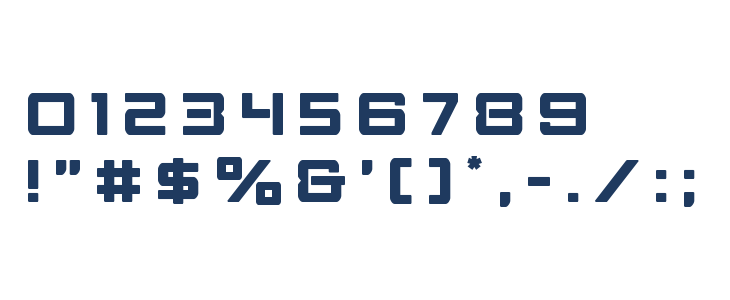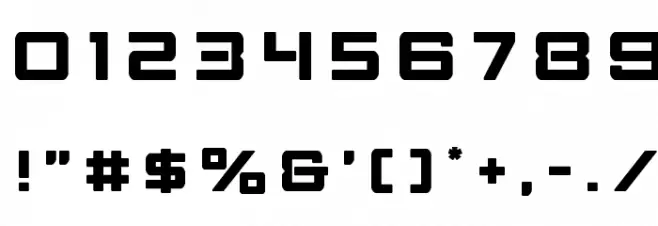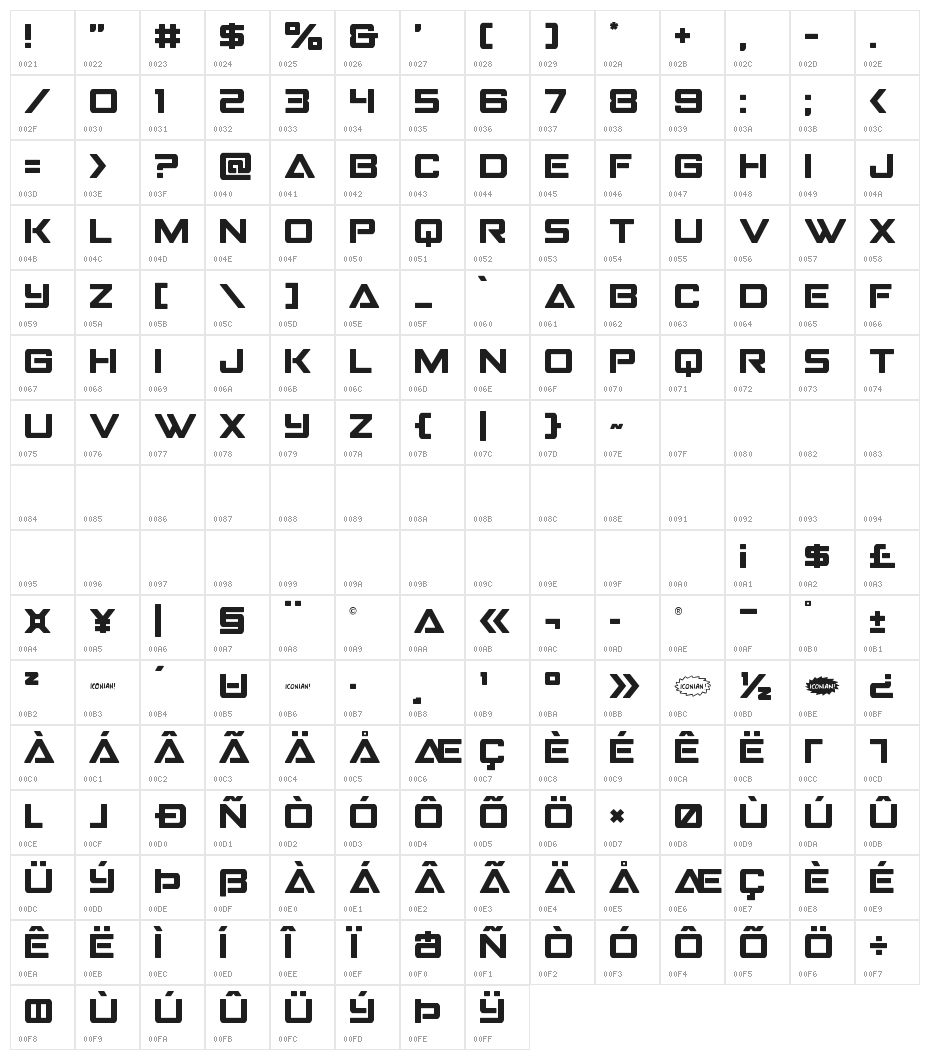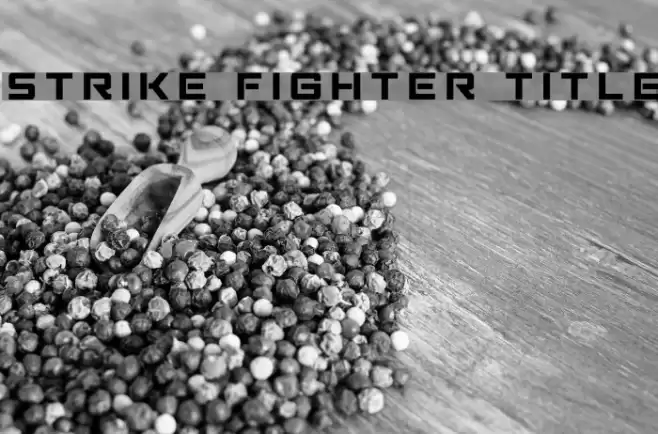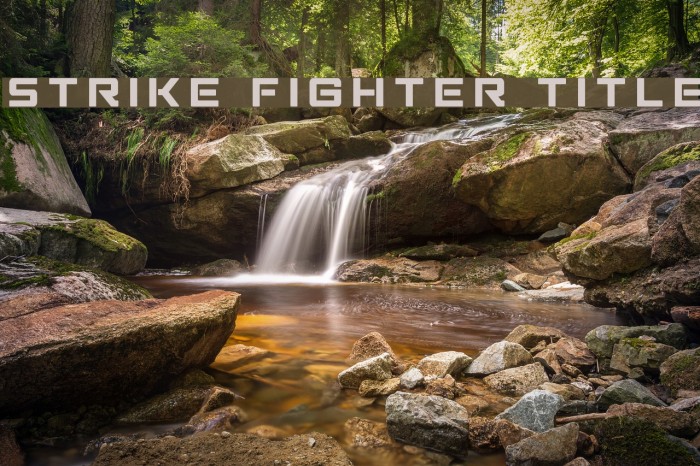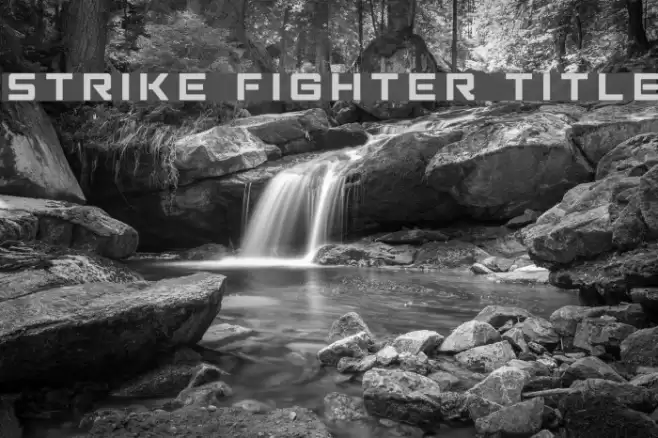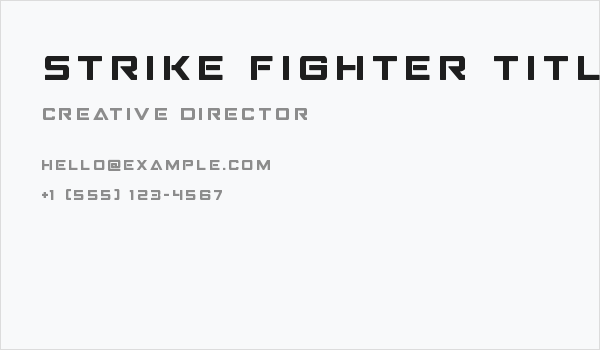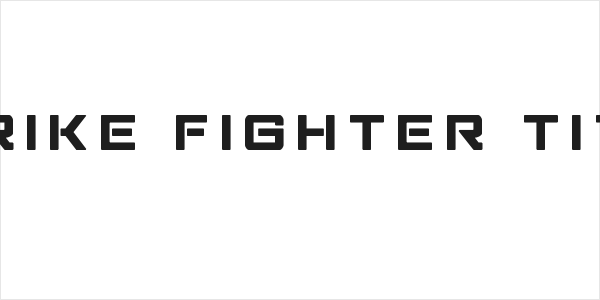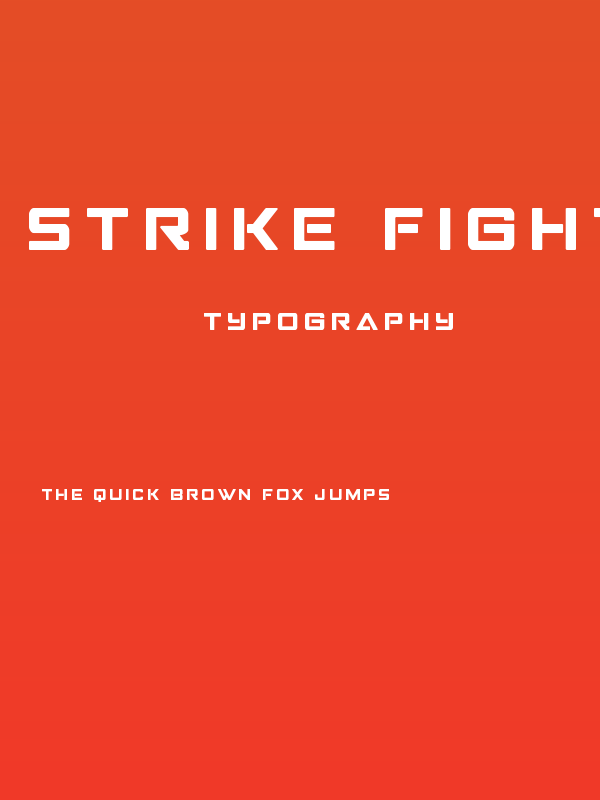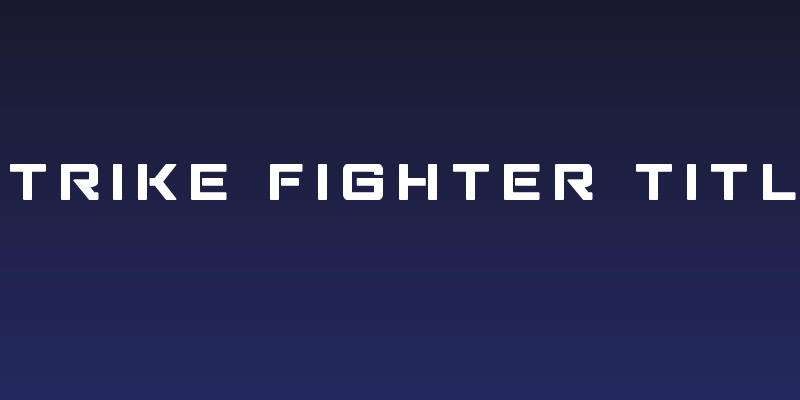
Strike Fighter Title Font
Strike Fighter Title Description
This font features a bold, geometric design with a futuristic and industrial feel. The characters are constructed with sharp angles and straight lines, giving them a mechanical and robust appearance. The uppercase letters are particularly striking, with a uniform height and width that create a cohesive and structured look. The numerals and special characters maintain this angular style, ensuring consistency across all glyphs. The font's design is reminiscent of military or aviation themes, making it ideal for projects that require a strong, impactful visual presence.
| Overall Style | Futuristic, Industrial |
| Proposed Projects | Ideal for use in video game titles, movie posters, technology branding, and any design requiring a strong, futuristic aesthetic. |